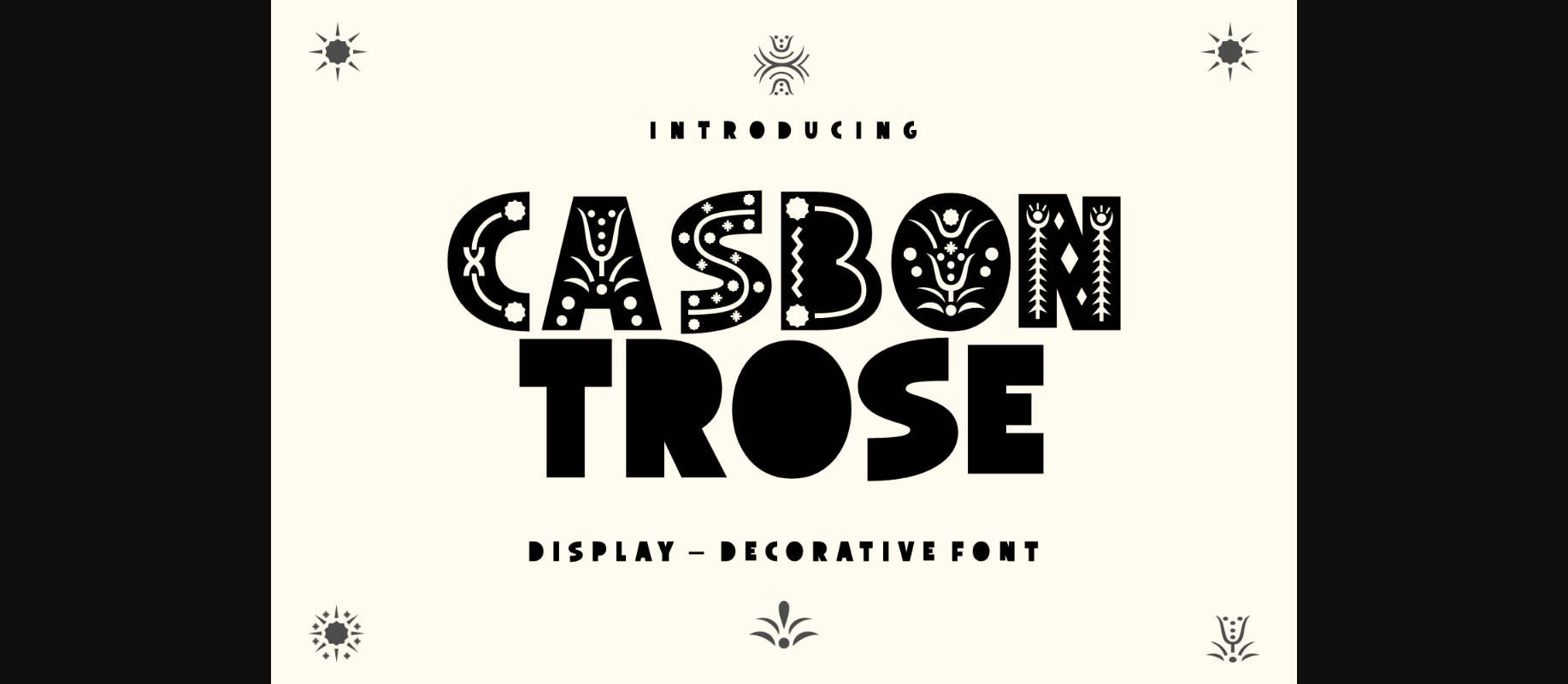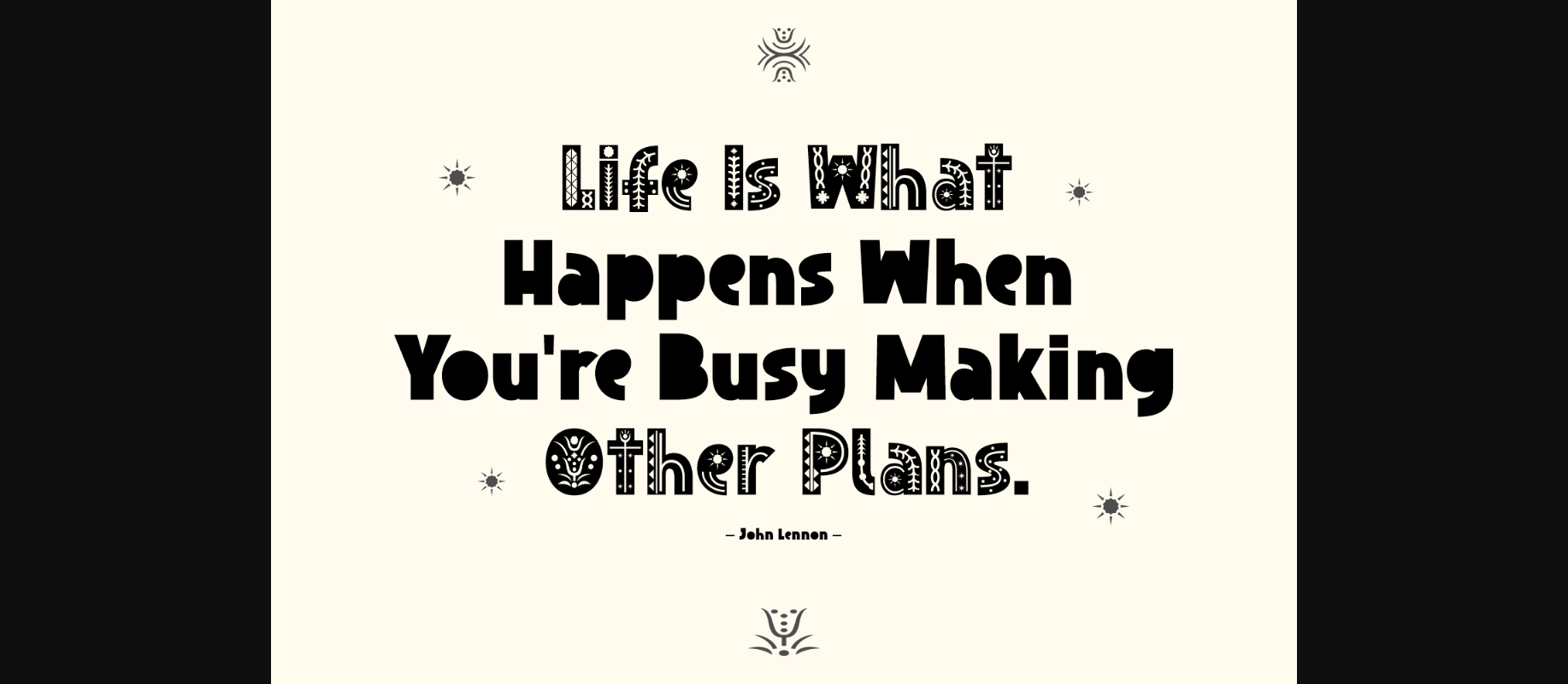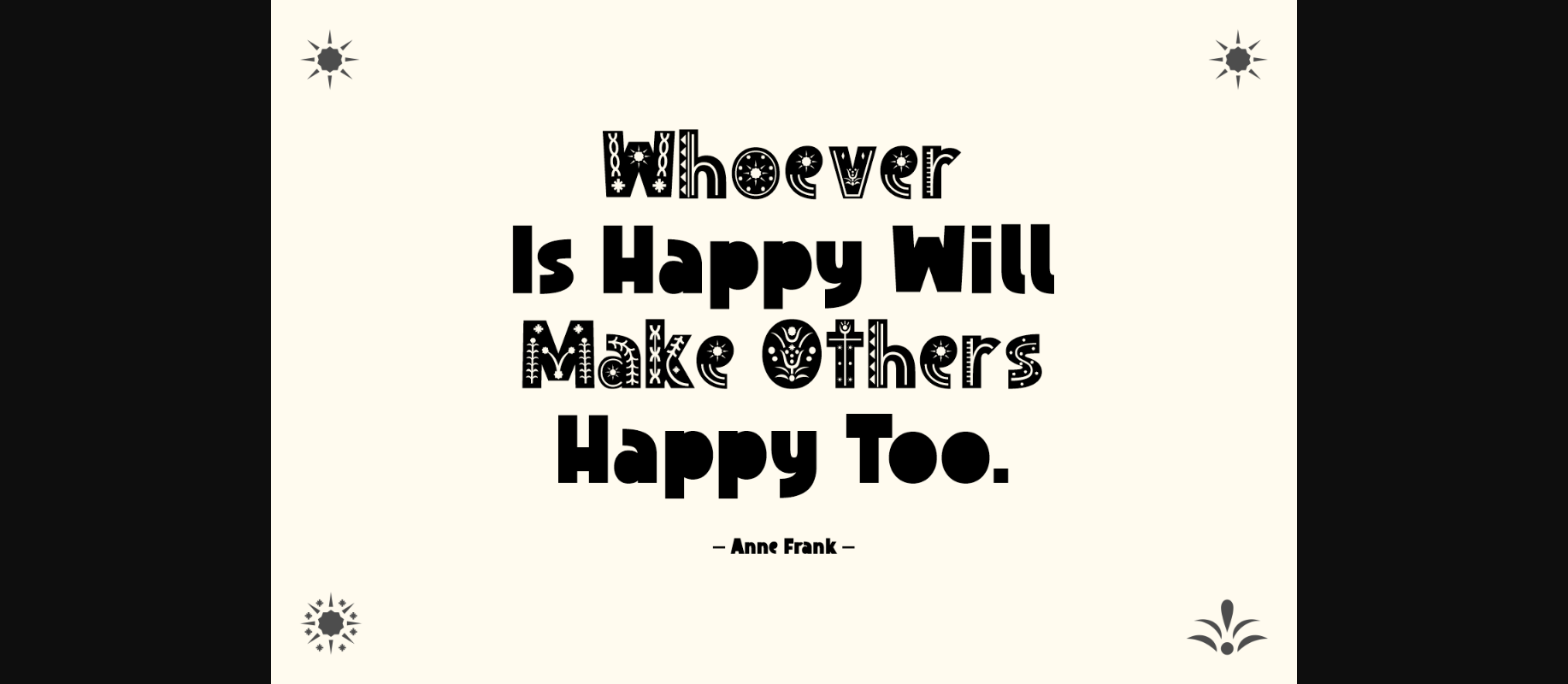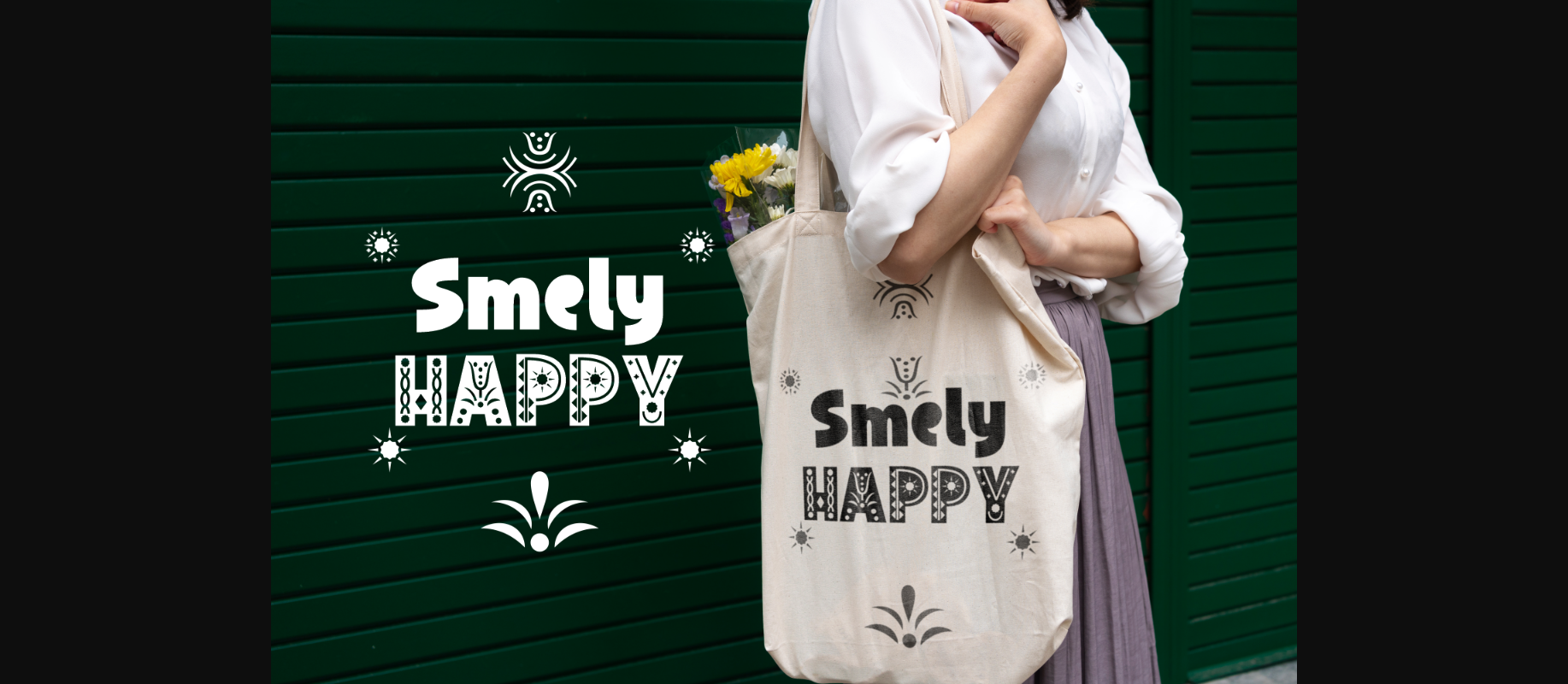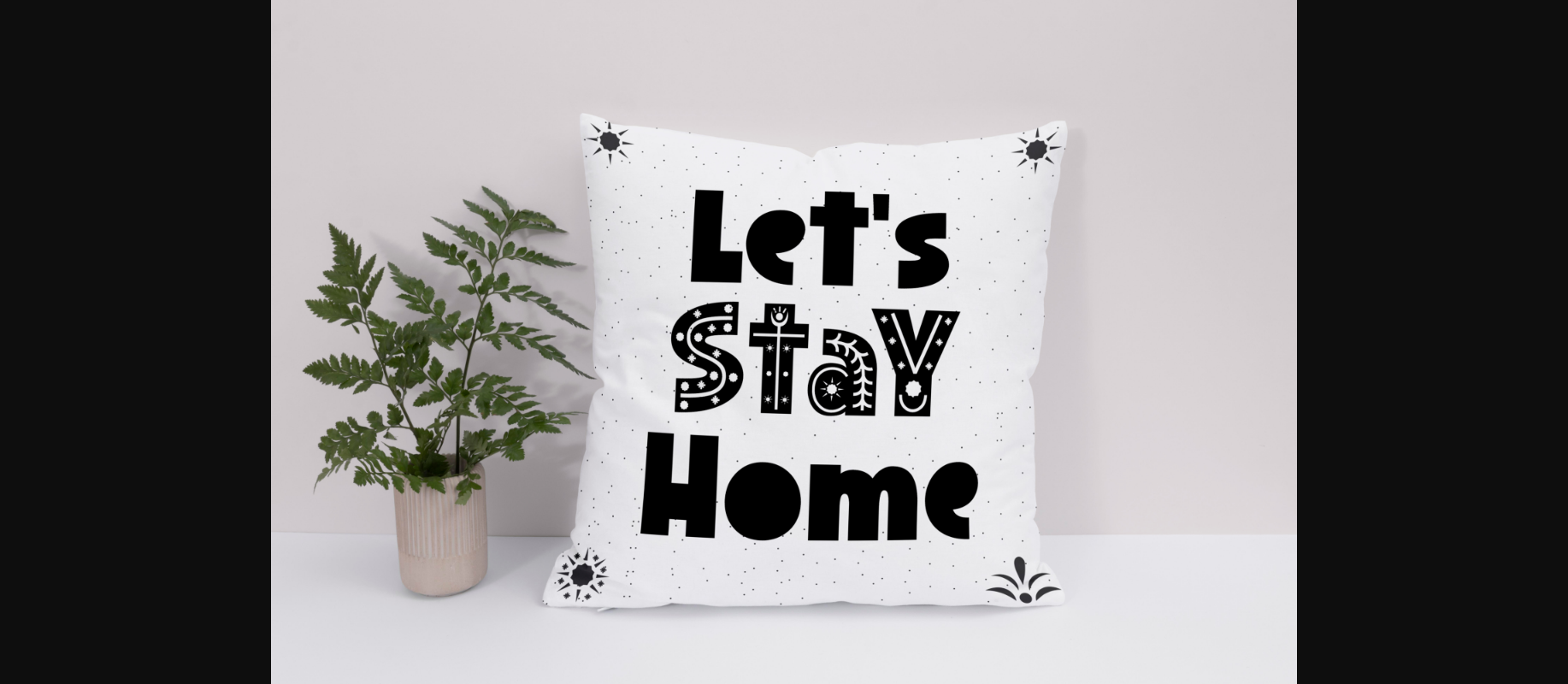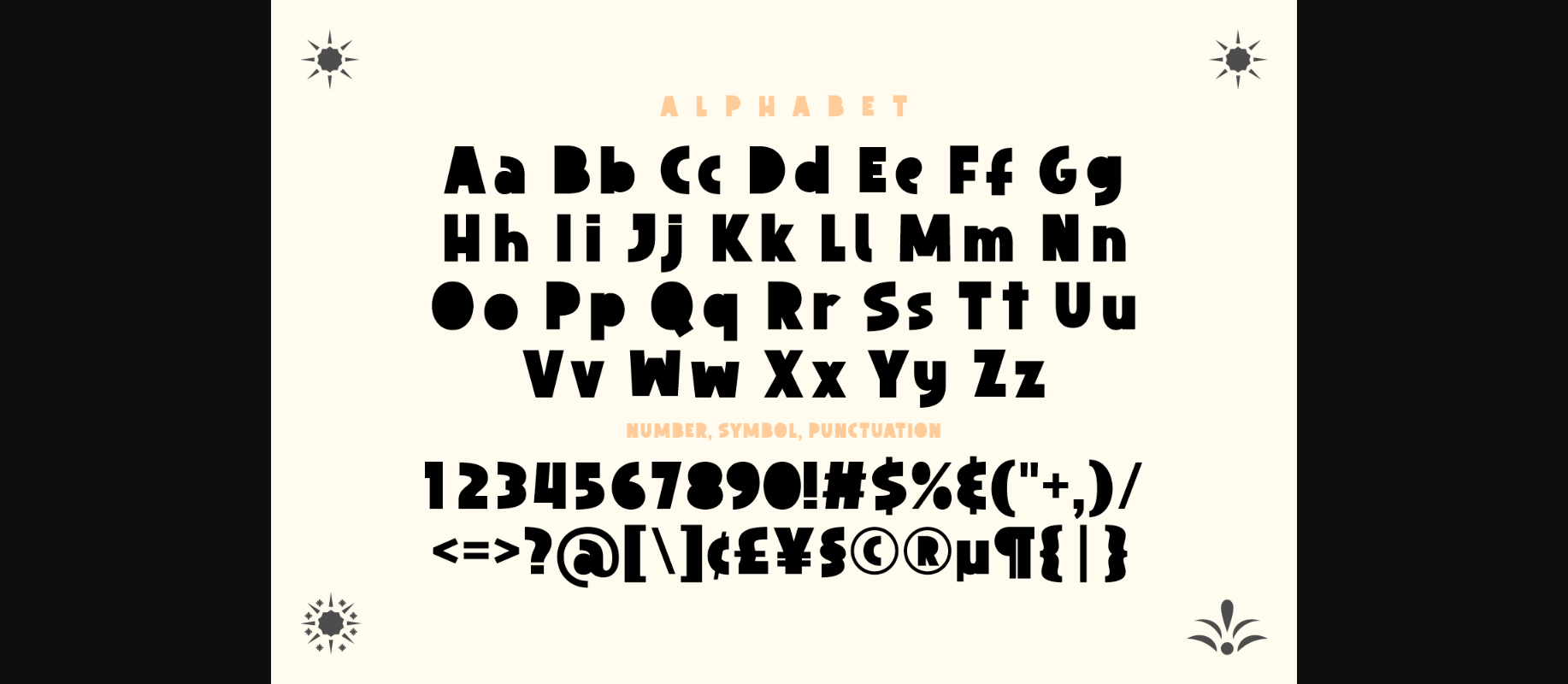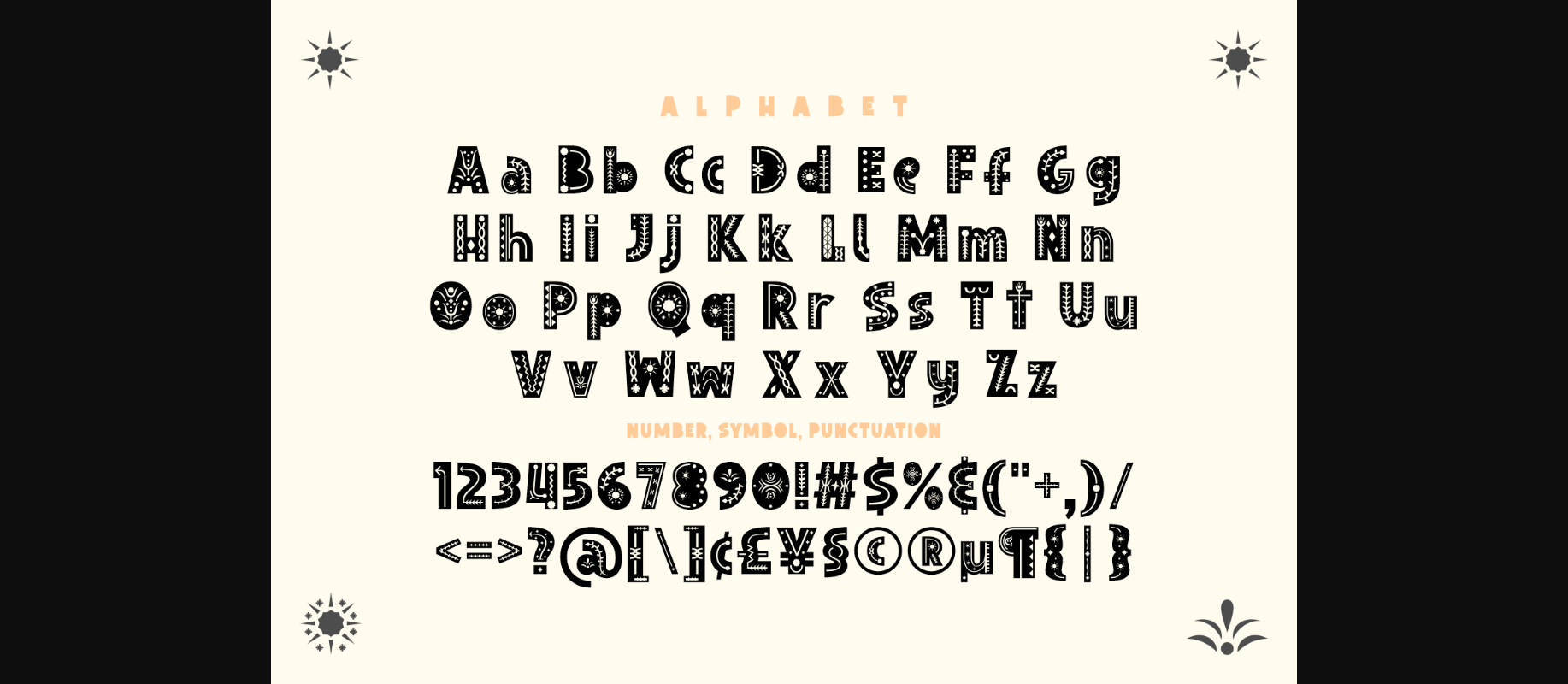
Casbon Trose is a beautiful decorative font. This font will help your needs, such as logos, product packaging, invitations, branding, headlines, signage, labels, book covers, posters, quotes, and more.